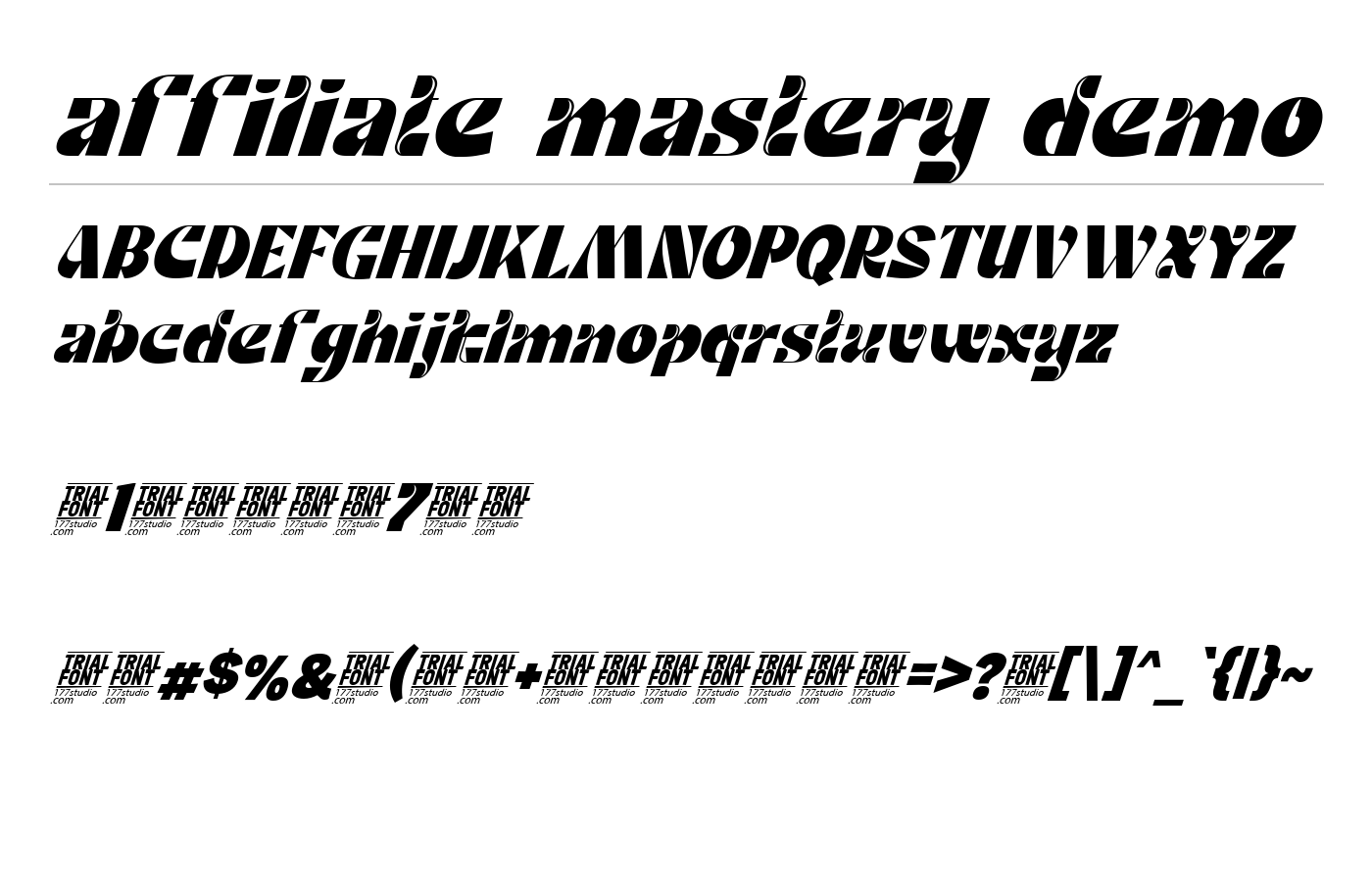
Affiliate Mastery demo is a bold, condensed serif font with a dynamic, modern twist. Its strong contrast between thick and thin strokes combined with sharp, angular serifs creates a striking, energetic feel that works well for headlines, branding, and display purposes where a confident, edgy aesthetic is desired. This font captures attention with its unique letterforms and italicized style, making it ideal for fashion, sports, or tech brands aiming to convey power and sophistication.
affiliate mastery demo Font
About affiliate mastery demo Font